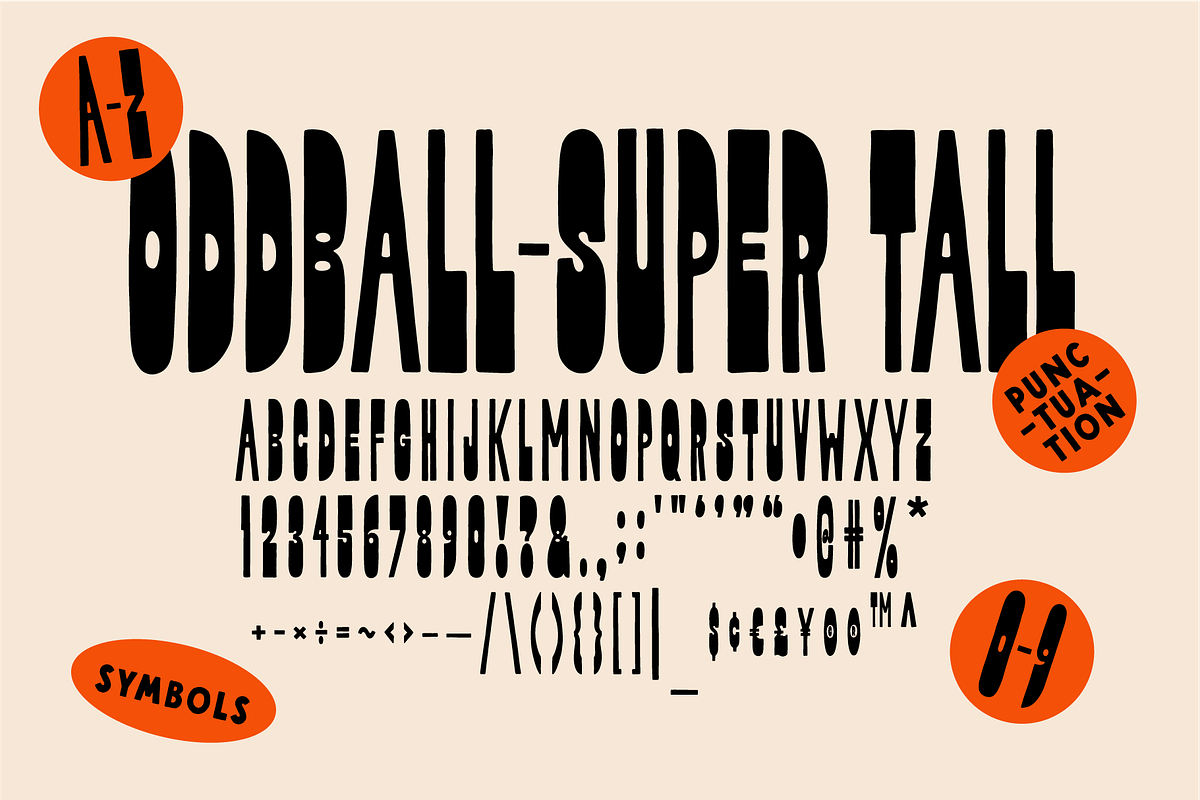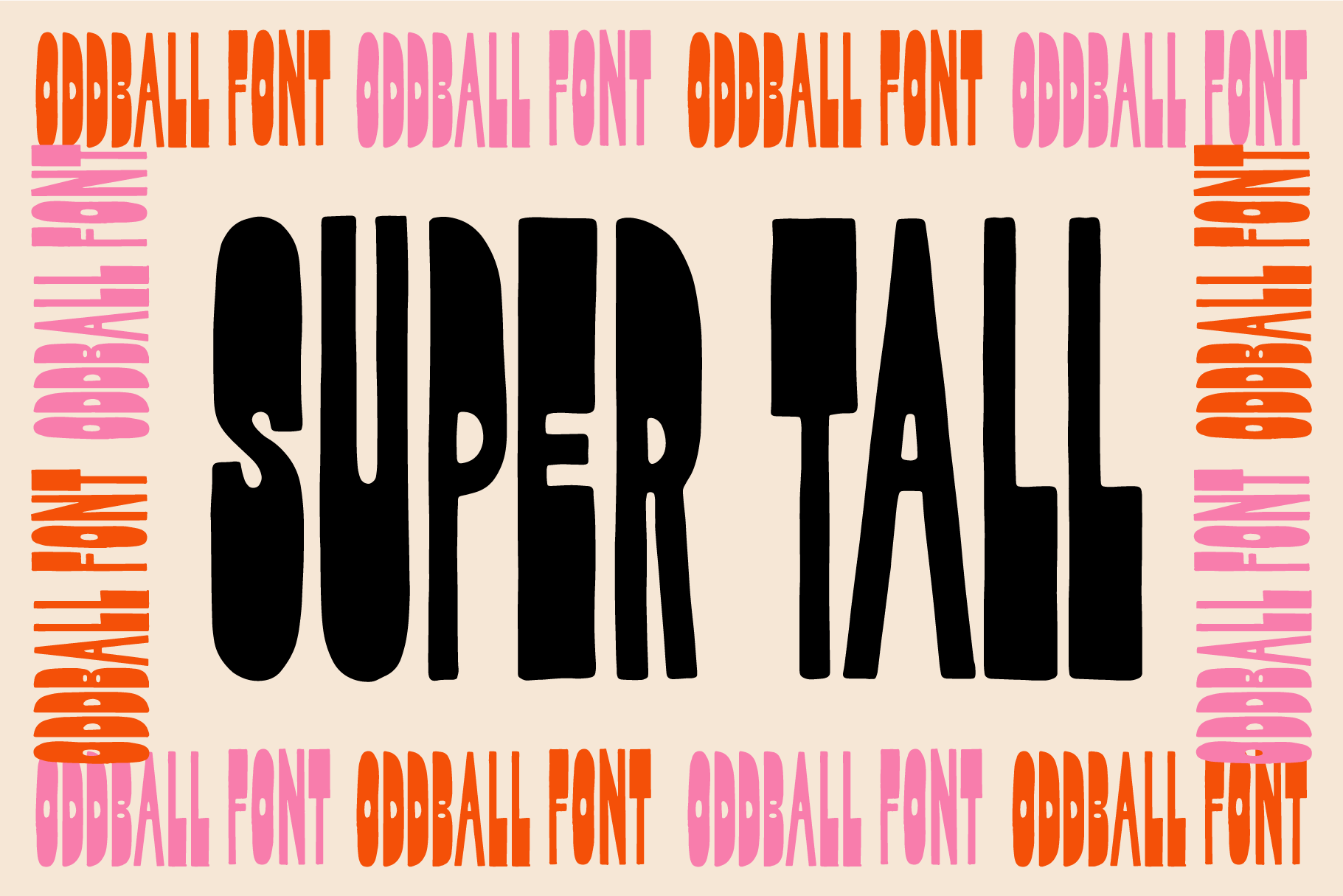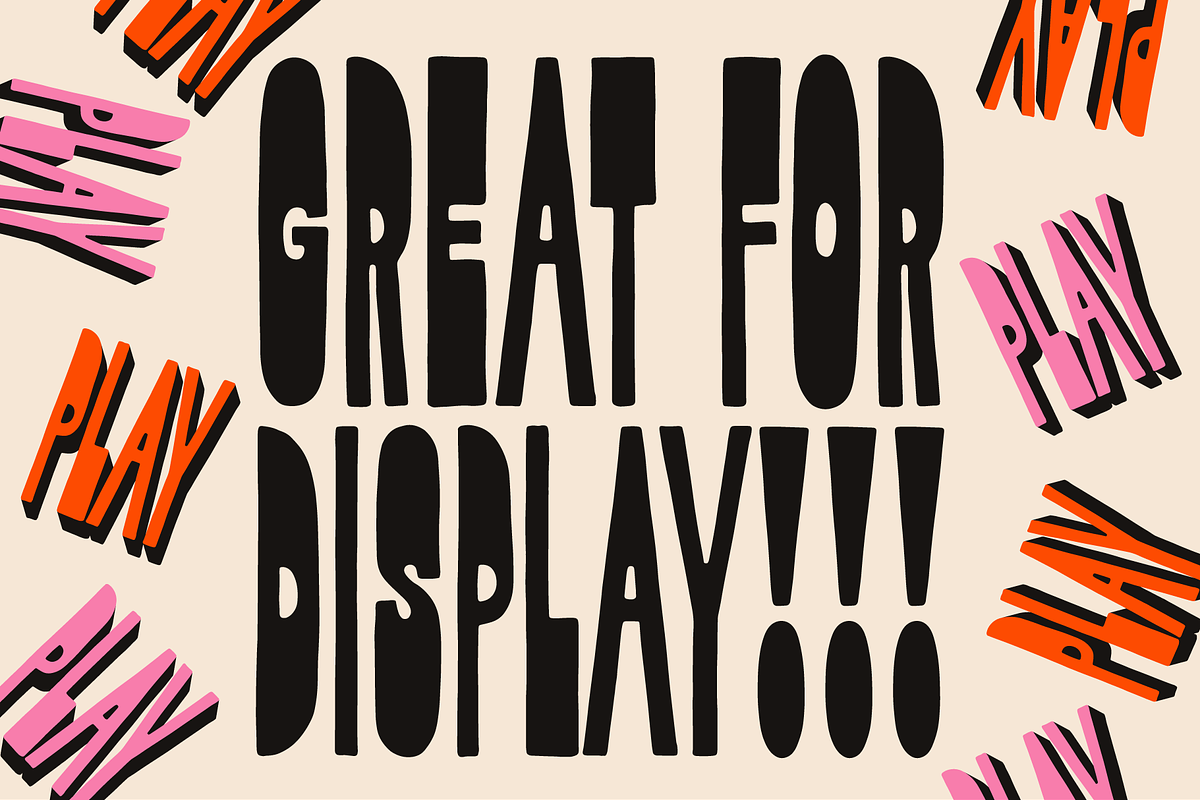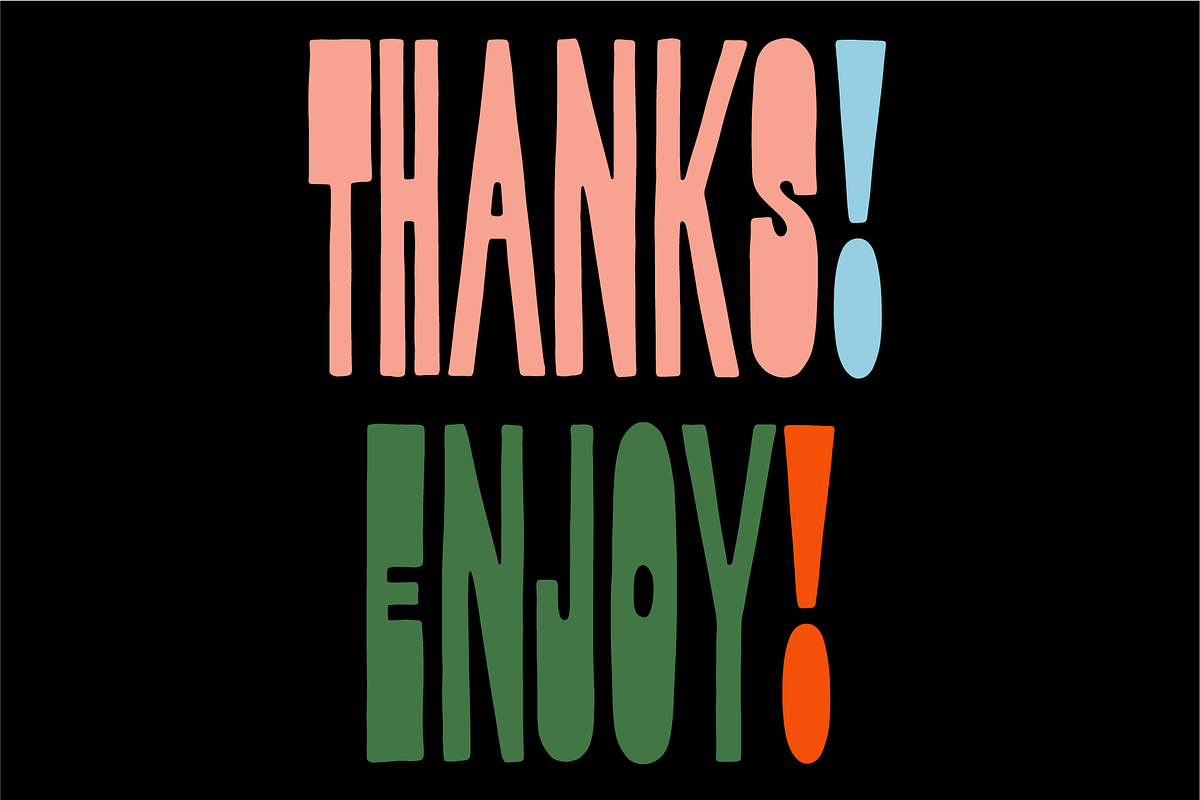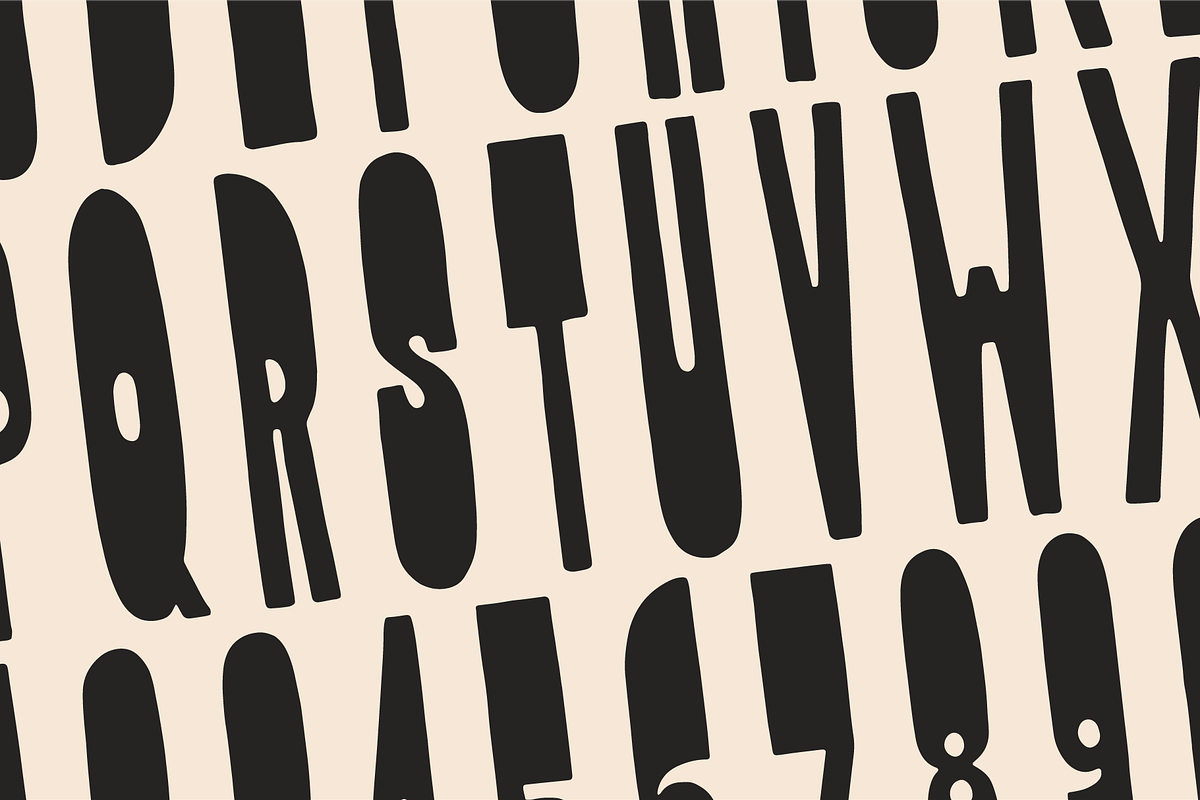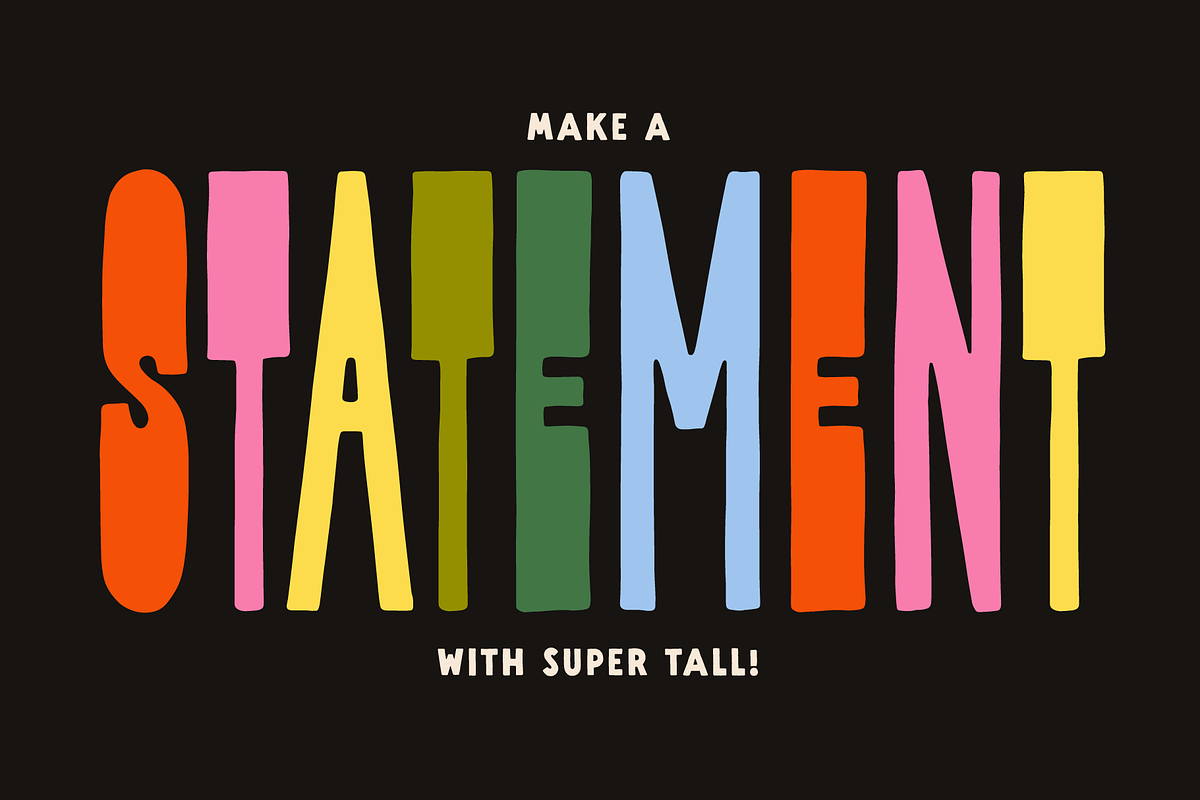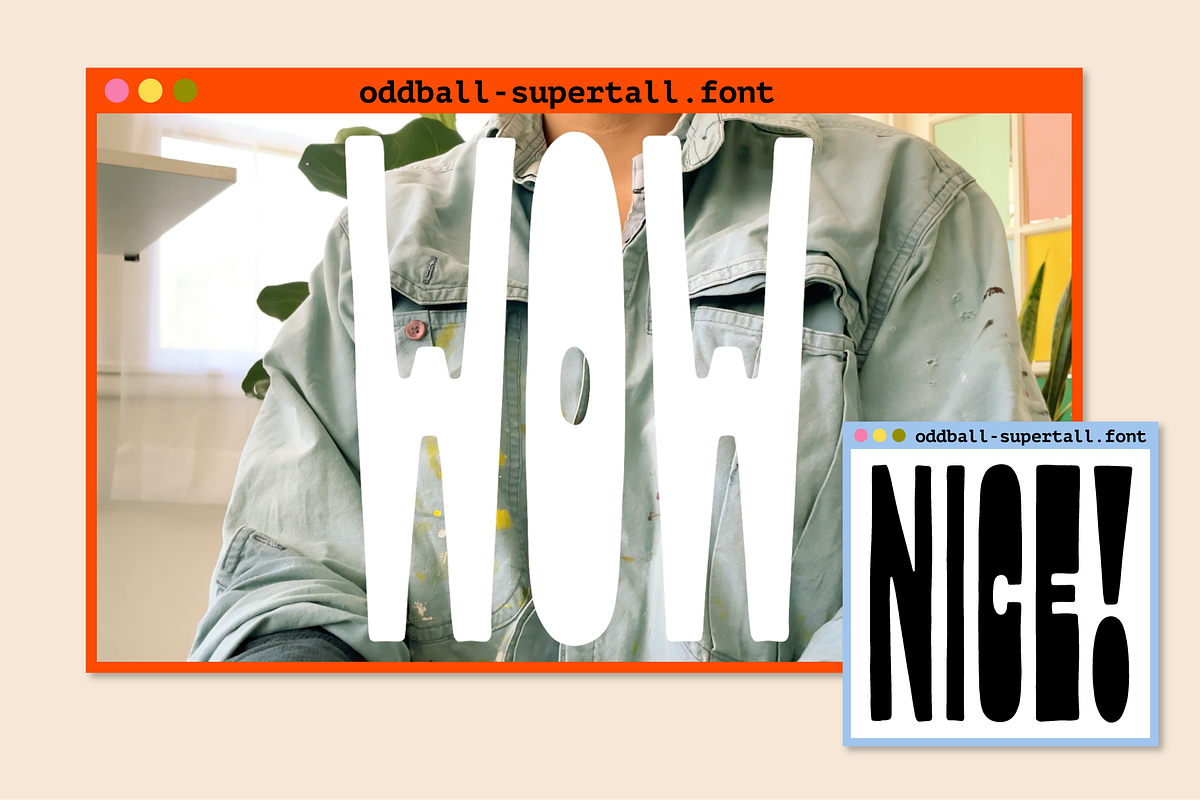
Oddball Super Tall - Retro Font
Oddball - Super Tall! Looking for something super tall and wonderfully unique? This hand-lettered font is for you! Each character was hand drawn by me to give it an imperfect, warm, handmade feel. Its tall and condensed letters are especially good for making an impact when used for display, or creative projects. This font was inspired by hand lettering, retro packaging, and the modern resurgence of reverse contrast forms.
Also great for logos, quotes, art, signs, and titles! Enjoy!
What's in the font? Uppercase Letters A-Z! Numbers! Symbols! Punctuation! (see slides!)